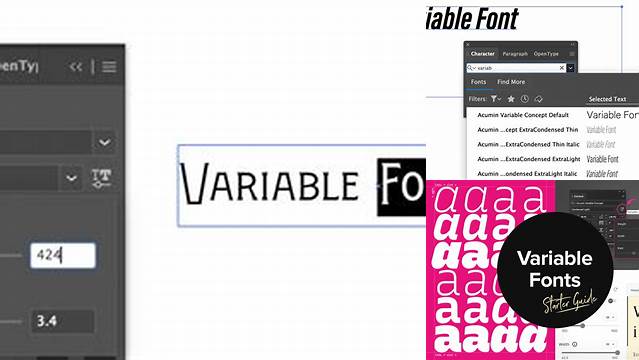
Variable Fonts In Illustrator CC: A Comprehensive Guide
Variable fonts are a game-changer in the world of typography, and Adobe Illustrator CC has fully embraced this technology. If you're looking to level up your design game, understanding how to use variable fonts is crucial. Guys, let’s dive deep into what variable fonts are, how they work in Illustrator CC, and how you can use them to create stunning designs.
What are Variable Fonts?
Variable fonts, also known as OpenType Font Variations, represent a significant advancement in font technology. Unlike traditional fonts, which store each style (like bold, italic, or condensed) as a separate file, variable fonts bundle all these styles into a single file. This results in smaller file sizes and greater flexibility, as designers can adjust font characteristics along continuous axes rather than being limited to predefined styles. Think of it like having a font that can morph into countless variations, all within a single file. This is not just a trend; it’s a revolution in typography.
1. Understanding Variable Fonts in Illustrator
Variable fonts in Illustrator are a typography powerhouse, offering unparalleled flexibility and control. When you use variable fonts, you're not just picking a style; you're crafting it. Illustrator CC supports variable fonts seamlessly, allowing designers to explore a wide range of stylistic options without sacrificing performance. This means you can fine-tune your text to perfectly match your design's aesthetic, creating unique and impactful visual communication. Using variable fonts in Illustrator is like having a custom typography studio right at your fingertips. You can adjust weight, width, slant, and other axes to create truly unique text styles. It opens up a world of possibilities for expressive and dynamic typography.
3. Exploring the Character Panel for Variable Font Controls
The Character panel in Illustrator is your command center for all things text-related, and it’s especially crucial when working with variable fonts. As mentioned before, within this panel, you’ll find the controls that let you manipulate the variable axes of your font. These controls are usually represented as sliders or dropdown menus, each corresponding to a different aspect of the font’s design, like weight, width, or slant. The beauty of the Character panel is that it provides a real-time preview of your adjustments. As you move the sliders, you can instantly see how the text changes, allowing you to fine-tune the font to your exact specifications. This immediate feedback is invaluable for achieving the perfect typographic effect. Mastering the Character panel is essential for unlocking the full potential of variable fonts in Illustrator. Take some time to familiarize yourself with the controls and experiment with different settings. You'll be amazed at the level of customization you can achieve.
4. Adjusting Font Weight Using Variable Fonts
Adjusting font weight is one of the most common uses of variable fonts. Instead of being limited to a few predefined weights (like Regular, Bold, or Black), you can smoothly transition between weights, creating a subtle gradient or a striking contrast. In Illustrator, this is done by manipulating the weight axis slider in the Character panel. Imagine you need a slightly heavier version of your text for emphasis, but the Bold style is too much. With a variable font, you can simply adjust the weight slider to the perfect intermediate value. This level of control allows for nuanced typography that can greatly enhance the overall design. It's all about finding the sweet spot that perfectly complements your visual message. Using variable fonts to adjust weight gives you unparalleled precision and flexibility, making it an essential tool for any designer who cares about typography.
5. Modifying Font Width with Variable Fonts
Similar to adjusting font weight, modifying font width with variable fonts provides a level of control previously unattainable with traditional fonts. You can condense or expand your text without distorting the letterforms, maintaining readability while achieving a unique visual effect. In Illustrator, the width axis slider in the Character panel makes this a breeze. Say you're working on a layout where space is tight. Instead of reducing the font size and compromising legibility, you can use a variable font to slightly condense the text, fitting it perfectly into the available space. This not only saves space but also adds a touch of sophistication to your design. The ability to subtly adjust width can be a game-changer in layout design. Variable fonts empower you to create text that is both visually appealing and perfectly functional.
6. Slant and Oblique Adjustments
Variable fonts also allow for precise adjustments to slant and oblique styles. This means you can create italics that are not just slanted versions of the regular font but are carefully designed for optimal readability and aesthetics. In Illustrator, you can control the slant axis to create subtle or dramatic italic effects. Traditional italic fonts are often separate font files, but variable fonts integrate these styles seamlessly, giving you more control over the italic appearance. You can fine-tune the slant to match your design's tone and style, whether it's a gentle lean for elegance or a more pronounced slant for emphasis. This nuanced control over italics can make a significant difference in the overall typographic quality of your work. Variable fonts make slant and oblique adjustments a breeze, allowing for truly customized italic styles.
7. Customizing Font Styles with Variable Axes
Customizing font styles using variable axes is where the true power of variable fonts shines. Each variable font can have multiple axes, such as weight, width, slant, optical size, and more. These axes allow you to create an almost infinite number of font variations, tailored precisely to your design needs. In Illustrator, the Character panel gives you access to these axes, letting you manipulate them in real time. Imagine you need a font that's bold but slightly condensed, with a subtle italic slant. With a variable font, you can achieve this specific style by adjusting the corresponding axes. This level of customization is simply not possible with traditional fonts. It opens up a world of creative possibilities, allowing you to create unique and expressive typography that perfectly reflects your design's message and aesthetic. Variable axes are the key to unlocking the full potential of variable fonts.
8. Optical Size Adjustments for Different Media
Optical size is a critical aspect of typography often overlooked. Variable fonts can address this by allowing you to adjust the font’s design based on its intended size. This means a font can be optimized for small text in body copy or large text in headlines, ensuring readability and visual impact across different media. In Illustrator, variable fonts with an optical size axis will allow you to fine-tune the font’s appearance for various sizes. A font optimized for small sizes might have wider letter spacing and thicker strokes to maintain legibility, while a font optimized for large sizes can have finer details and tighter spacing. This attention to detail can make a significant difference in the overall quality of your typography. Variable fonts with optical size adjustments ensure that your text looks its best, no matter the medium.
9. Creating Unique Typographic Effects
Variable fonts are fantastic for creating unique typographic effects. By combining different axis adjustments, you can achieve styles that are impossible with traditional fonts. Think of it as having a playground for typography, where you can experiment and push the boundaries of what’s possible. In Illustrator, try combining weight, width, and slant adjustments to create striking visual contrasts. You can also use variable fonts to create animated text effects, where the font characteristics change over time. The possibilities are truly endless. Whether you're designing a logo, a poster, or a website, variable fonts can add a touch of originality and creativity to your typography. So go ahead, experiment, and discover the unique typographic effects you can create with variable fonts.
10. Using Variable Fonts for Branding
Variable fonts are a powerful tool for branding. A well-chosen and customized font can become a key element of your brand identity, conveying your brand’s personality and values. Variable fonts allow you to create a unique typographic voice that sets you apart from the competition. In Illustrator, you can use variable fonts to craft a custom logo or brand typeface that perfectly aligns with your brand’s aesthetic. By adjusting the font’s axes, you can create subtle variations for different applications, ensuring consistency while adding visual interest. A unique brand font can significantly enhance brand recognition and recall. Variable fonts offer the flexibility and control needed to create a distinctive and memorable typographic identity.
11. Improving Readability with Variable Fonts
Readability is paramount in typography, and variable fonts can play a crucial role in improving it. By adjusting parameters like weight, width, and optical size, you can optimize a font for different reading conditions and media. In Illustrator, you can experiment with different variable font settings to find the sweet spot for readability. For example, you might increase the weight and width of a font for body text to enhance legibility, or adjust the optical size for small text to maintain clarity. Readable typography is essential for effective communication. Variable fonts provide the tools to fine-tune your text for optimal reading comfort and comprehension.
12. Enhancing User Interface (UI) Design with Variable Fonts
Variable fonts are increasingly valuable in user interface (UI) design. They allow for responsive typography, where the font adjusts dynamically to different screen sizes and resolutions. This ensures a consistent and visually appealing user experience across all devices. In Illustrator, you can use variable fonts to design UI elements that adapt seamlessly to different contexts. For example, you can use a lighter font weight for smaller screens to improve readability or a bolder weight for larger screens to maintain visual hierarchy. Responsive typography is a key element of modern UI design. Variable fonts offer the flexibility and control needed to create user interfaces that are both functional and aesthetically pleasing.
13. Optimizing Font Performance with Variable Fonts
Font performance is often overlooked but is critical, especially in web design. Variable fonts can significantly improve performance by reducing file sizes and the number of font files needed. This translates to faster loading times and a smoother user experience. Traditional font workflows often involve loading multiple font files for different styles (e.g., Regular, Bold, Italic). Variable fonts consolidate these styles into a single file, reducing overhead. Faster loading times improve user engagement and SEO rankings. Variable fonts are a win-win, offering both stylistic flexibility and performance optimization.
14. Using Variable Fonts in Web Design
In web design, variable fonts are a game-changer. They offer the flexibility to create dynamic and responsive typography without sacrificing performance. This is crucial for delivering a consistent user experience across different devices and screen sizes. By using CSS, you can manipulate the variable axes of a font in real-time, creating engaging typographic effects and optimizing readability. For example, you can adjust the font weight based on user interaction or screen size. Variable fonts empower web designers to create more expressive and performant websites. They are an essential tool for modern web typography.
15. Integrating Variable Fonts with CSS
Integrating variable fonts with CSS is the key to unlocking their full potential in web design. CSS provides the tools to control the variable axes of a font, allowing you to create dynamic and responsive typographic effects. The font-variation-settings
property in CSS allows you to specify values for different font axes. This enables you to adjust the font weight, width, slant, and other parameters based on user interaction, screen size, or other factors. Mastering CSS integration is essential for using variable fonts effectively on the web. It opens up a world of possibilities for creative and performant web typography.
16. Animating Variable Fonts for Dynamic Effects
Animating variable fonts is a cutting-edge technique that can add a whole new level of dynamism to your designs. By animating the variable axes of a font, you can create captivating typographic effects that grab attention and enhance user engagement. In web design, CSS transitions and animations can be used to smoothly change font characteristics over time. For example, you can animate the font weight or width on hover or scroll. Font animation can make your designs stand out and create a memorable user experience. Variable fonts provide the flexibility needed to bring typographic animations to life.
17. Choosing the Right Variable Font for Your Project
Choosing the right variable font is crucial for the success of your project. Not all variable fonts are created equal, and some are better suited for certain applications than others. Consider the font's style, the number of variable axes it offers, and its overall legibility. A font with a wide range of weights and widths might be ideal for branding or UI design, while a font with an optical size axis is perfect for body text. Careful font selection can significantly impact the quality and effectiveness of your design. Take the time to explore different options and find the variable font that best fits your project's needs.
18. Troubleshooting Common Variable Font Issues in Illustrator
Even with the best tools, you might encounter some issues when working with variable fonts in Illustrator. Common problems include fonts not displaying correctly, issues with axis controls, or performance slowdowns. First, ensure that the font is properly installed and activated. Restarting Illustrator can often resolve minor glitches. If you're experiencing performance issues, try simplifying your design or reducing the number of variable fonts used. Troubleshooting is part of the design process. By understanding common issues and their solutions, you can overcome obstacles and create stunning designs with variable fonts.
19. Exploring Variable Font Foundries and Resources
There are numerous foundries and resources offering high-quality variable fonts. Exploring these options can expand your typographic palette and inspire new design ideas. Google Fonts is a great place to start, offering a wide selection of free variable fonts. Other foundries, like Adobe Fonts, Font Bureau, and Monotype, offer premium variable fonts with extensive features and support. Continuous learning and exploration are essential for staying up-to-date with the latest typographic trends. By exploring different foundries and resources, you can discover the perfect variable fonts for your projects.
20. The Future of Typography with Variable Fonts
The future of typography is undoubtedly intertwined with variable fonts. This technology is rapidly evolving, and its potential is vast. As more designers and developers embrace variable fonts, we can expect to see even more innovative applications and typographic effects. Variable fonts offer the flexibility, performance, and creative potential needed to meet the demands of modern design. The typographic landscape is changing, and variable fonts are at the forefront of this evolution. Embracing this technology is essential for anyone who cares about the future of typography.
21. Variable Fonts and Responsive Design
Variable fonts are a perfect match for responsive design. Their ability to adapt to different screen sizes and resolutions ensures a consistent and visually appealing typographic experience across all devices. This is crucial for creating modern websites and applications that work seamlessly on desktops, tablets, and smartphones. By using CSS to control the variable axes of a font, you can create responsive typographic systems that dynamically adjust to the user's environment. Responsive design is no longer optional, it's a necessity, and variable fonts play a vital role in achieving it.
22. Variable Fonts and Accessibility
Accessibility is a key consideration in design, and variable fonts can contribute to creating more accessible typographic systems. By adjusting font weight, width, and optical size, you can optimize text for readability and legibility, making it easier for people with visual impairments to consume content. For example, increasing the font weight can improve contrast and make text more readable for users with low vision. Accessible design benefits everyone, and variable fonts provide the tools to create more inclusive typographic solutions.
23. Variable Fonts vs. Traditional Fonts
Variable fonts offer several advantages over traditional fonts. They reduce file sizes, improve performance, and provide greater stylistic flexibility. Traditional fonts store each style (e.g., Bold, Italic) as a separate file, which can lead to larger file sizes and slower loading times. Variable fonts consolidate these styles into a single file, reducing overhead. The benefits are clear: variable fonts are more efficient, versatile, and future-proof than traditional fonts.
24. Advanced Techniques for Variable Fonts in Illustrator
There are several advanced techniques you can use to maximize the potential of variable fonts in Illustrator. These include creating custom typographic styles, using variable fonts for data visualization, and experimenting with font animation. By pushing the boundaries of what's possible, you can create truly unique and impactful designs. Advanced techniques are where the magic happens, allowing you to create designs that stand out from the crowd.
25. Variable Fonts and Data Visualization
Variable fonts can be used creatively in data visualization. By mapping data points to font axes, you can create dynamic charts and graphs that are both visually appealing and informative. For example, you could use the font weight to represent data values, with heavier weights indicating larger values. Data visualization is becoming increasingly important, and variable fonts offer a novel way to present complex information in an engaging manner.
26. Best Practices for Using Variable Fonts
To make the most of variable fonts, it's essential to follow some best practices. These include choosing fonts that are well-designed and have a wide range of axes, optimizing fonts for performance, and testing your designs across different devices and browsers. Best practices are the foundation of good design, ensuring that your work is both aesthetically pleasing and functional.
27. Common Mistakes to Avoid with Variable Fonts
There are some common mistakes to avoid when working with variable fonts. These include overusing variable axes, neglecting readability, and ignoring performance considerations. By being aware of these pitfalls, you can create better designs and avoid common issues. Learning from mistakes is part of the design journey, and understanding these common errors will help you grow as a designer.
28. Variable Fonts and Collaboration
Variable fonts can streamline the collaborative design process. By using a single font file that contains multiple styles, you can ensure consistency across different designers and projects. This reduces the risk of font conflicts and makes it easier to share and collaborate on designs. Collaboration is key to successful design projects, and variable fonts can help teams work more efficiently and effectively.
29. The Impact of Variable Fonts on Design Workflows
Variable fonts are significantly impacting design workflows. They offer greater flexibility, efficiency, and creative potential. By reducing file sizes, improving performance, and allowing for dynamic typography, variable fonts are transforming the way designers work. Design workflows are constantly evolving, and variable fonts are a major catalyst for change.
30. Future Trends in Variable Font Technology
The future of variable font technology is bright. We can expect to see more fonts with advanced axes, improved tooling, and wider adoption across different platforms and applications. Variable fonts are poised to become the standard for web and graphic design, offering a new level of control and creativity. The future is exciting, and variable fonts are at the forefront of typographic innovation.